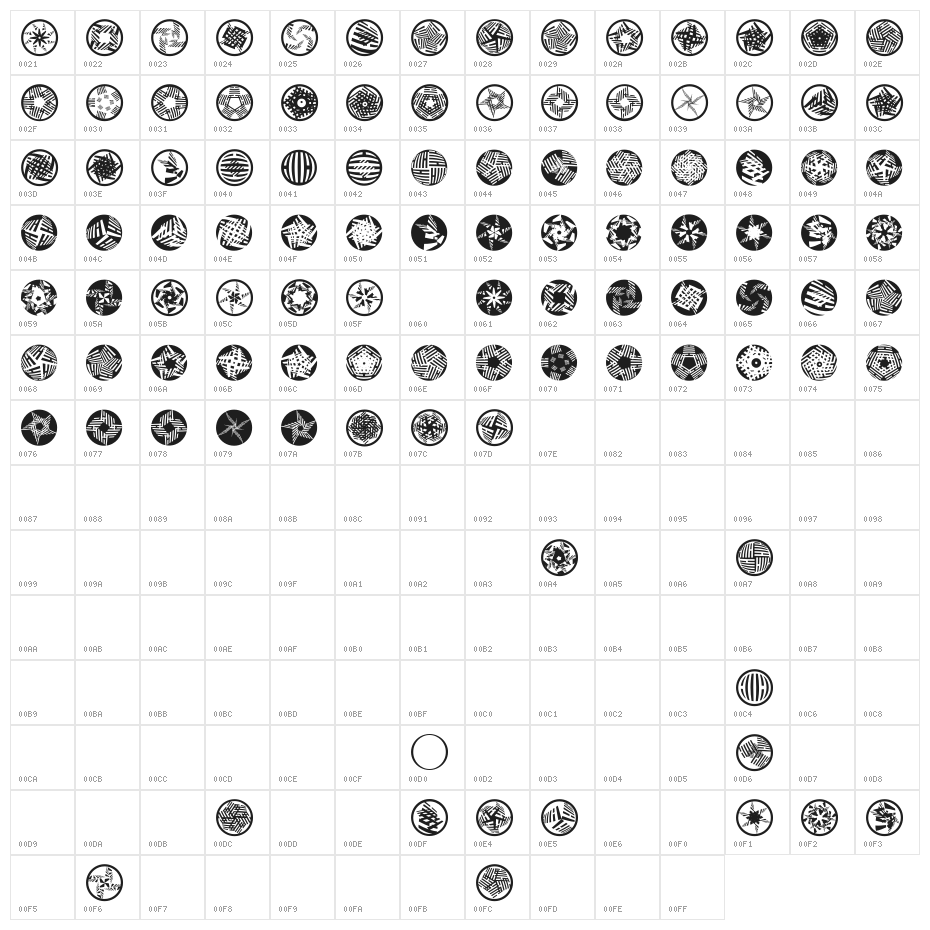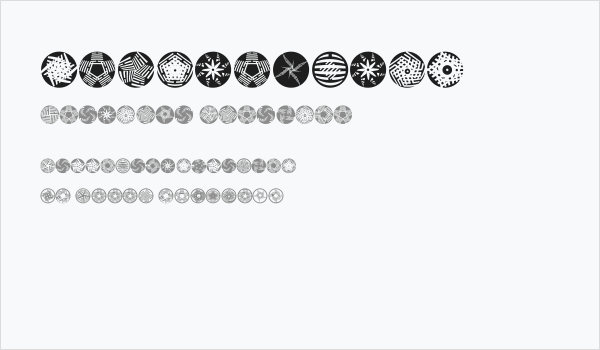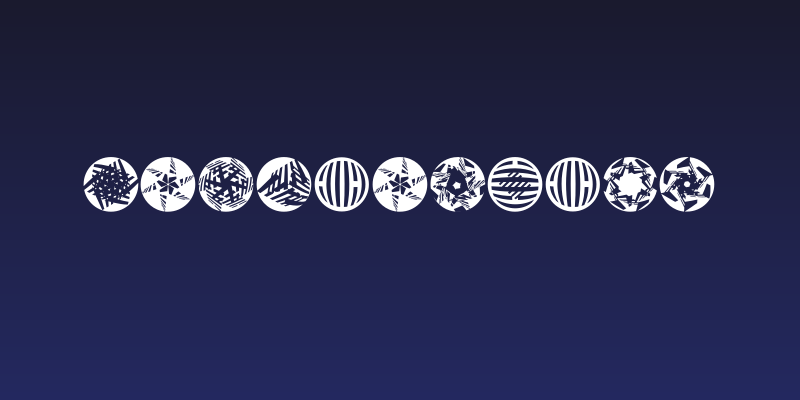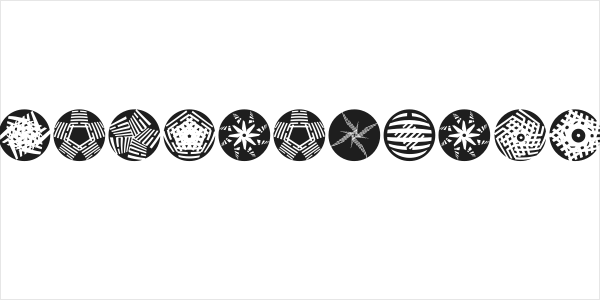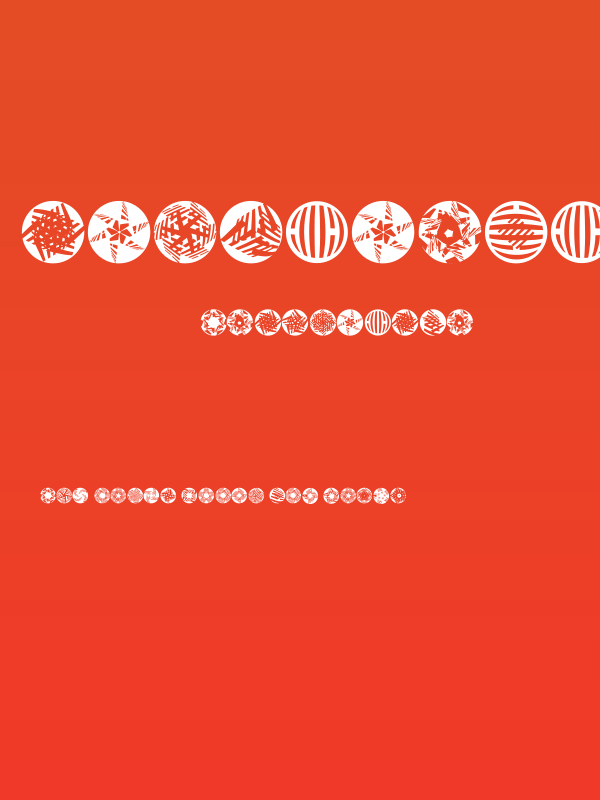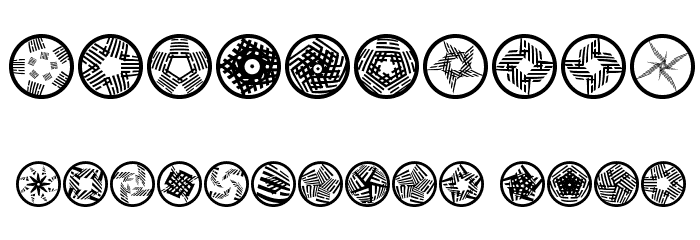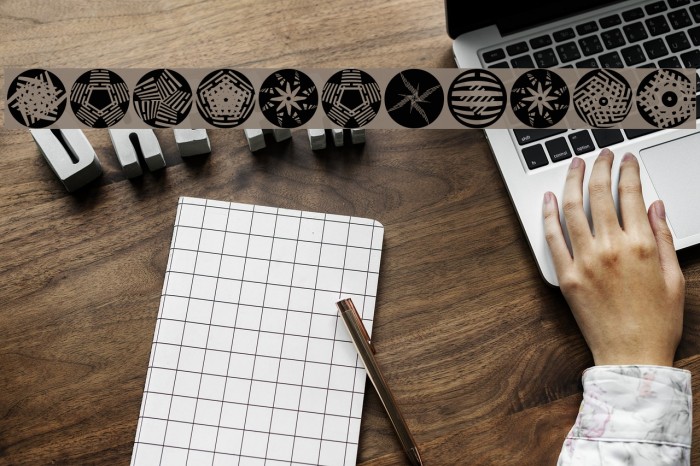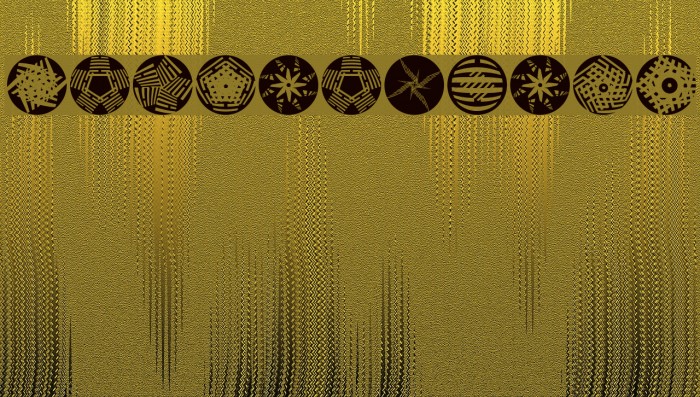
PrimaryBats Font
PrimaryBats Description
A collection of circular geometric symbols with intricate, abstract line and dot patterns, each enclosed in a bold black circle. The designs vary from radial symmetry to grid-like and starburst arrangements, with high contrast between black and white elements.
| Overall Style | Decorative, Abstract, Modern |
| Use Case | Logos, Decorative elements, Icons, Pattern design |
| Proposed Projects | Branding, logo design, decorative borders, digital art, pattern creation, iconography. |